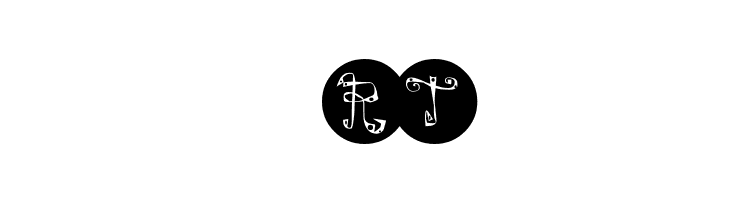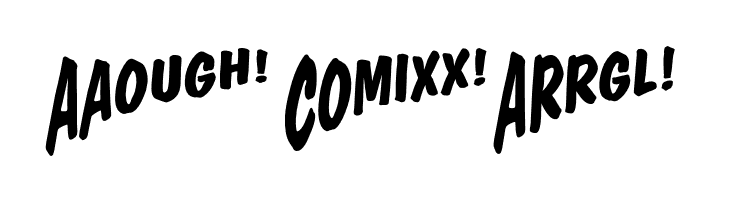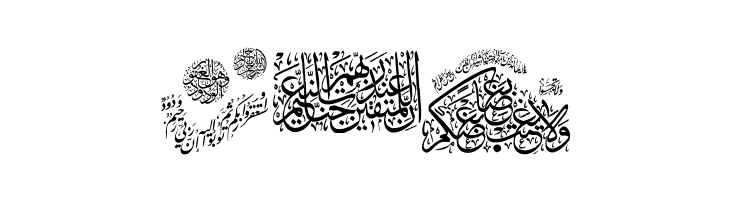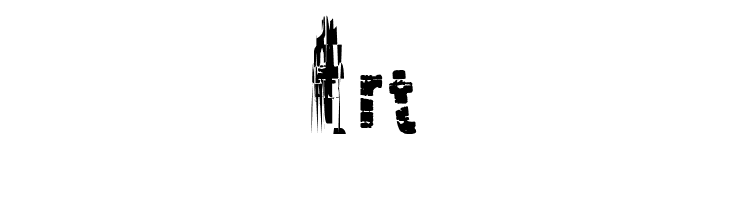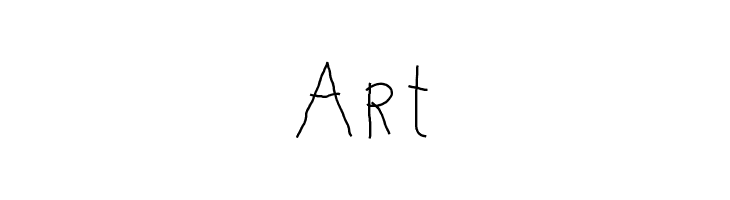
A bold, playful font with thick, rounded strokes and a whimsical style.
A whimsical, decorative font with circular encased letters and vine-like details.
A bold, energetic comic book style font with exaggerated, playful characters.
A mirror writing font with an artistic, vintage flair.
A bold, distressed font with a vintage, industrial feel.
A bold, distressed font with a grunge, urban aesthetic.
A playful, childlike font with irregular, hand-drawn strokes.